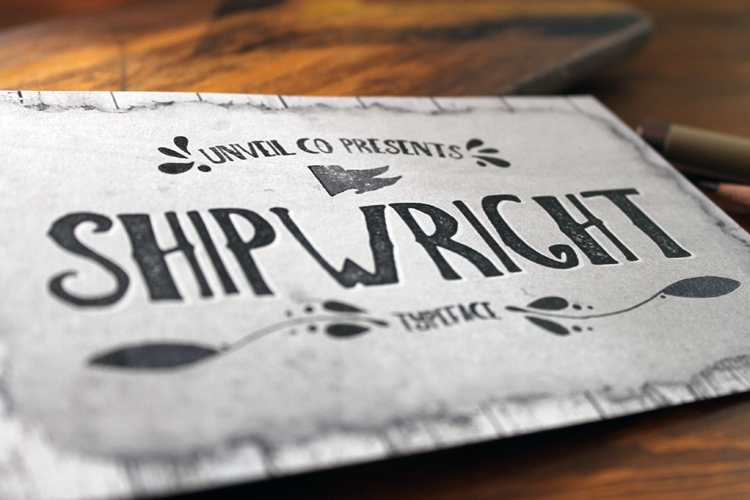
Shipwright Typeface
Introducing Shipwright Typeface -- Handmade/Hand-drawn.
This typeface has a hint of a nautical feel - hence the name. With this typeface you can create a vintage design, posters, logos, brand names, labels, etc. -- you name it; the sky is the limit.